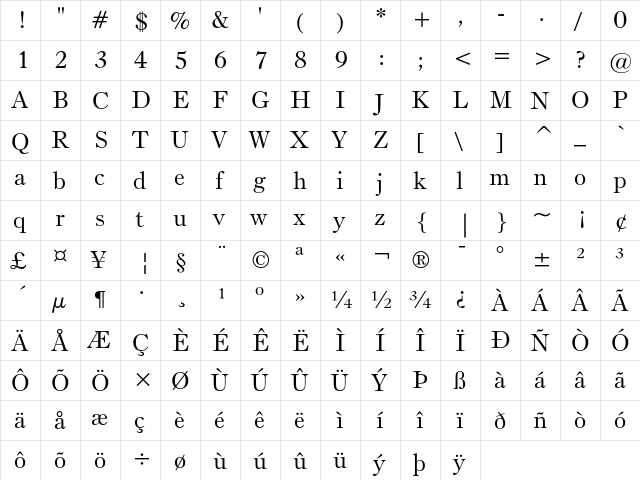
Bruce Old Style Regular
Design Context for Bruce Old Style Typeface
Bruce Old Style takes a measured approach to typography — its balanced proportions and neutral character make it a reliable workhorse for both digital and print work.